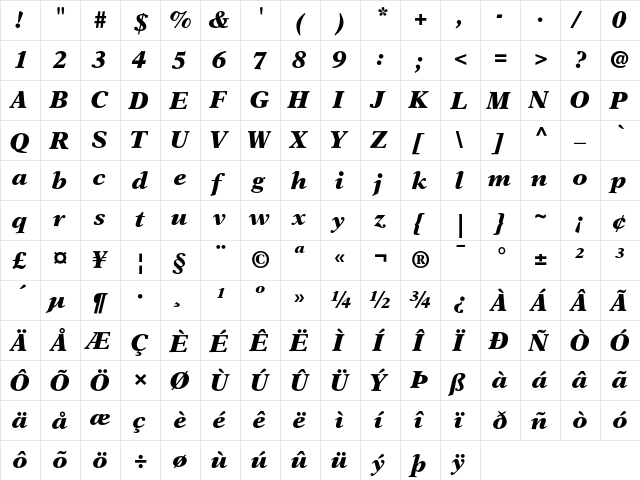
New Aster Black Italic
Design Context for New Aster Typeface
New Aster is a composed and adaptable typeface that performs quietly and consistently across a wide range of design contexts. The dynamic lean of this cut emphasises speed and emphasis in any layout.
Pro Tip: Try New Aster for annotation and caption copy alongside an upright companion — the contrast in angle creates a dynamic but ordered typographic system.